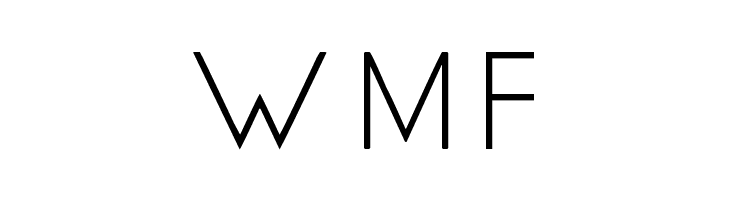
WolfBanePro Font
groenstudio - Ay Terry - creativemarket.com/groens
An elegant script font with decorative swirls and modern flair.
Inkpen Scribble Font
A casual, handwritten font with an ink pen scribble style.
Thin Lines and Curves Font
Brad Terry - bradterry.net
A sleek, modern font with thin lines and smooth curves, ideal for minimalist designs.
Terry Script Font
Font by www.vicfieger.com
A lively, cursive script font with smooth, flowing lines and a handwritten appearance.
Muthya Font
groenstudio - Ay Terry - creativemarket.com/groens
An elegant, high-contrast script font with flowing, decorative characters.
Berlian Font
groenstudio - Ay Terry - creativemarket.com/groens
A bold, modern serif font with strong, thick strokes.
Twetter Font
groenstudio - Ay Terry - creativemarket.com/groens
A graceful script font with elegant, flowing strokes and sophisticated style.
SOLUTION Font
A bold, condensed font with a modern and authoritative style.
MelaniScript Font
groenstudio - Ay Terry - creativemarket.com/groens
A flowing, elegant script font with interconnected letters and bold strokes.
Terry Bruce Font
A tall, slender, and modern font with consistent stroke width and minimalistic design.
Terry Bruce Italic Font
A sleek, elegant italic font with thin, elongated letterforms and a subtle slant.